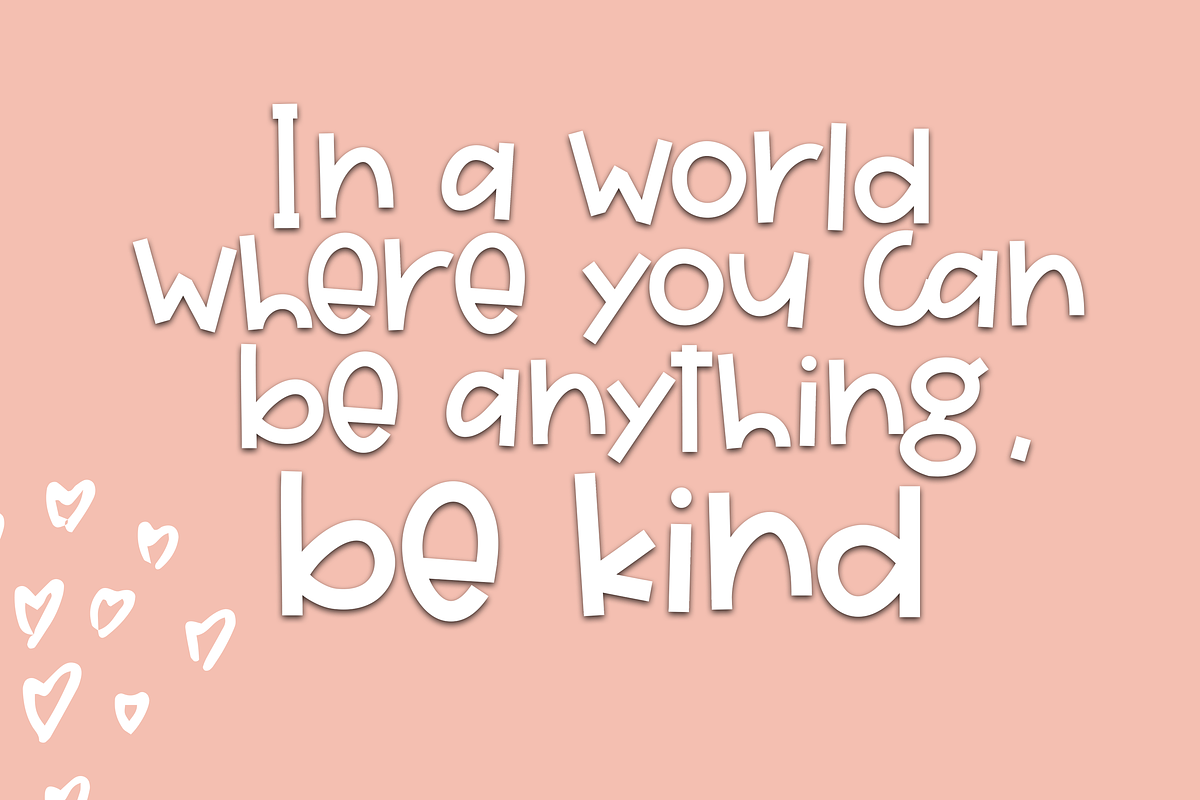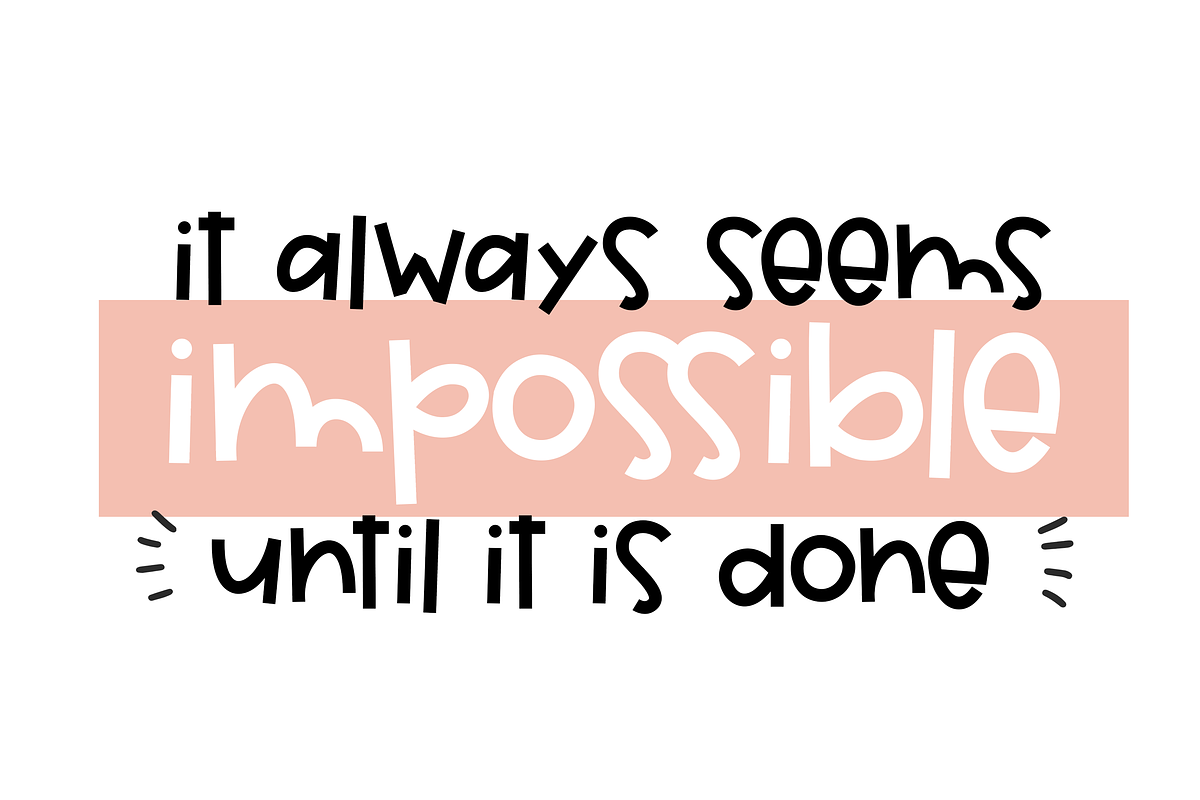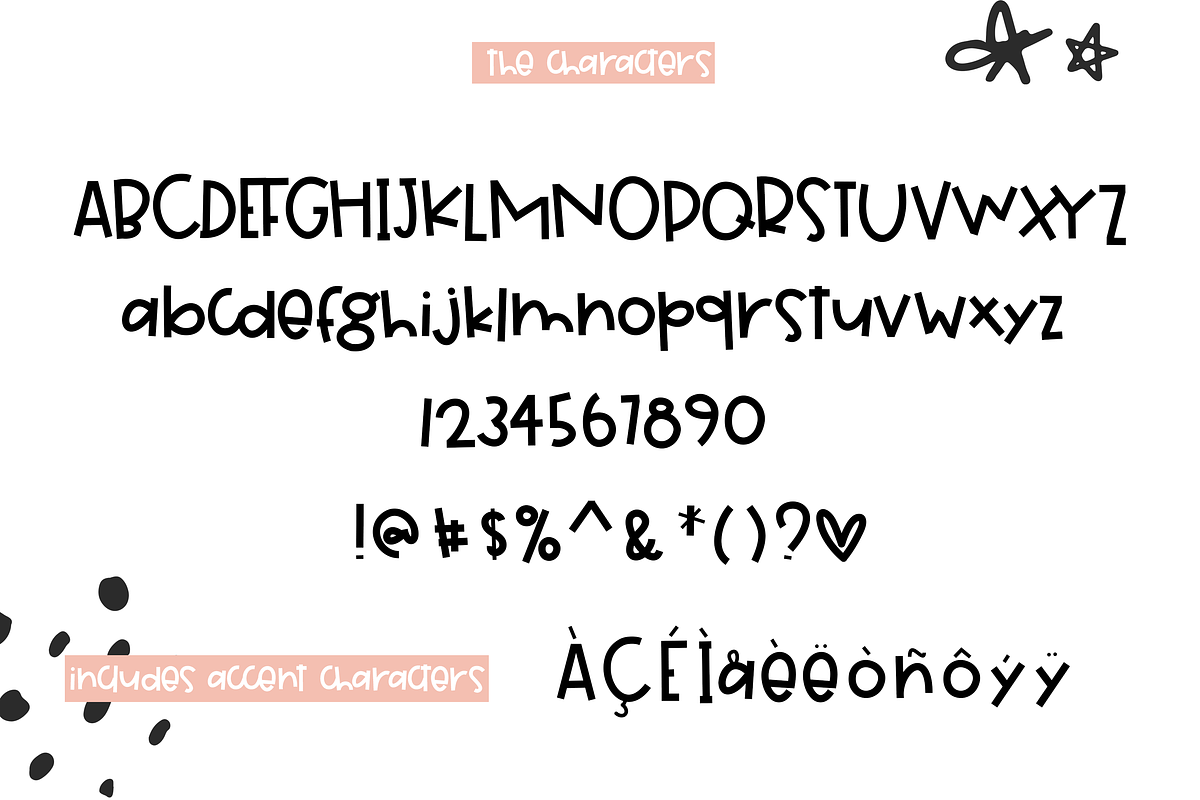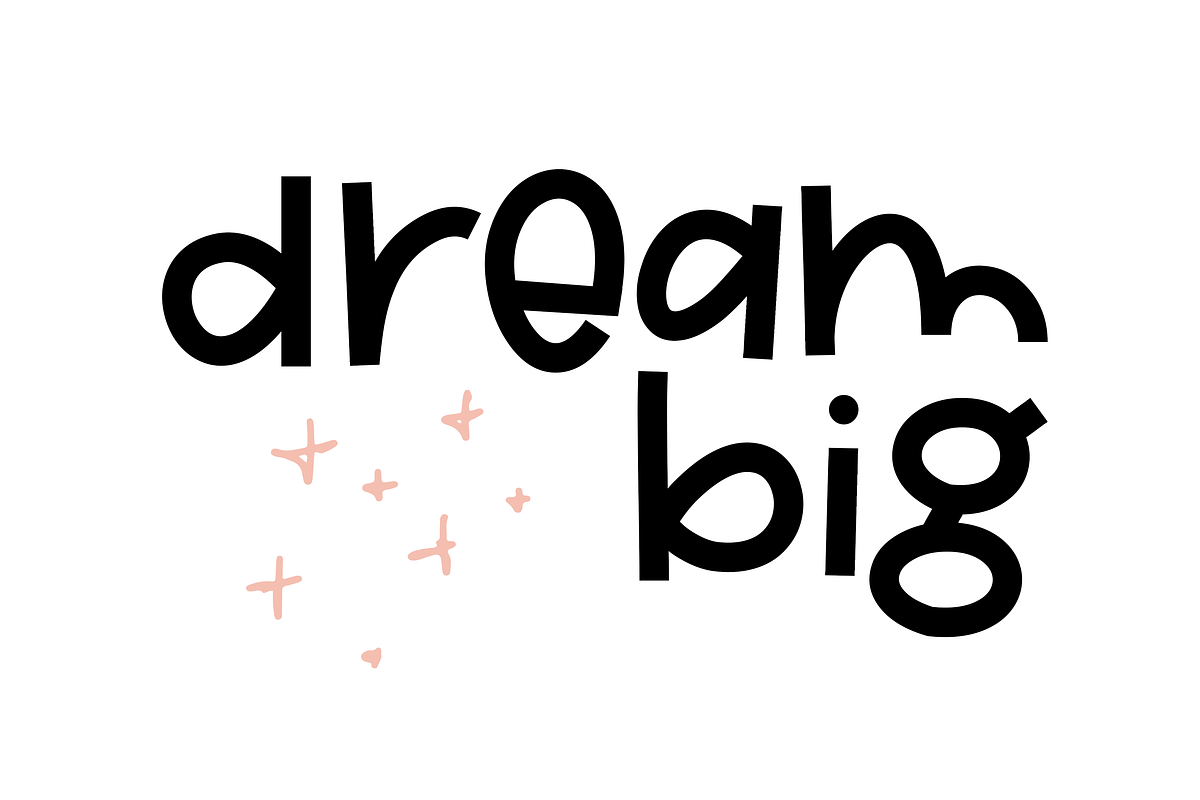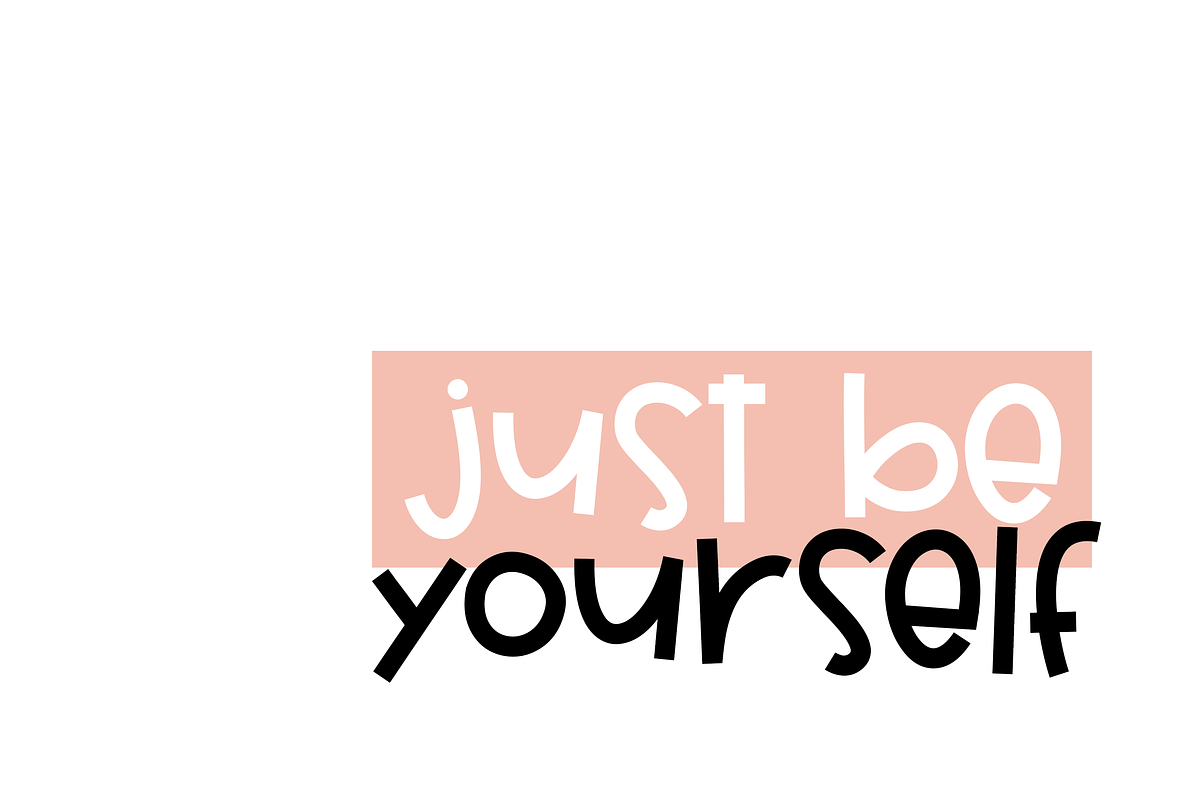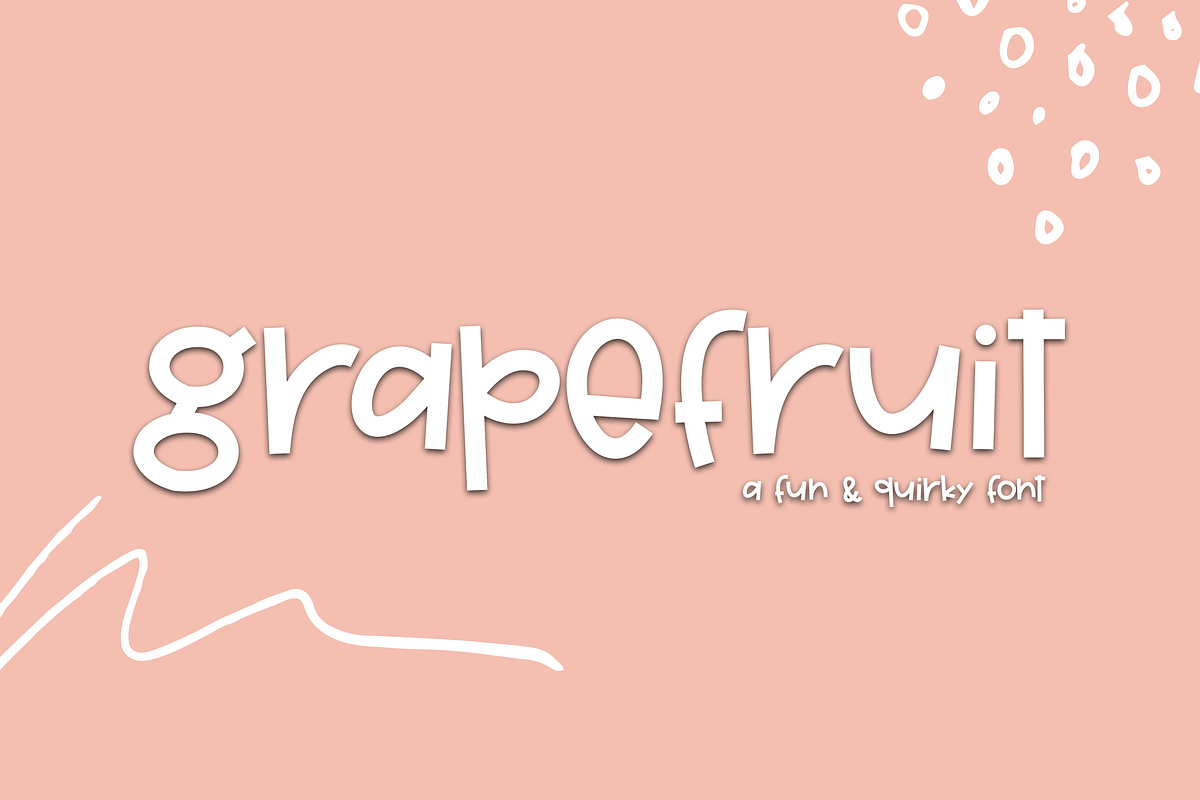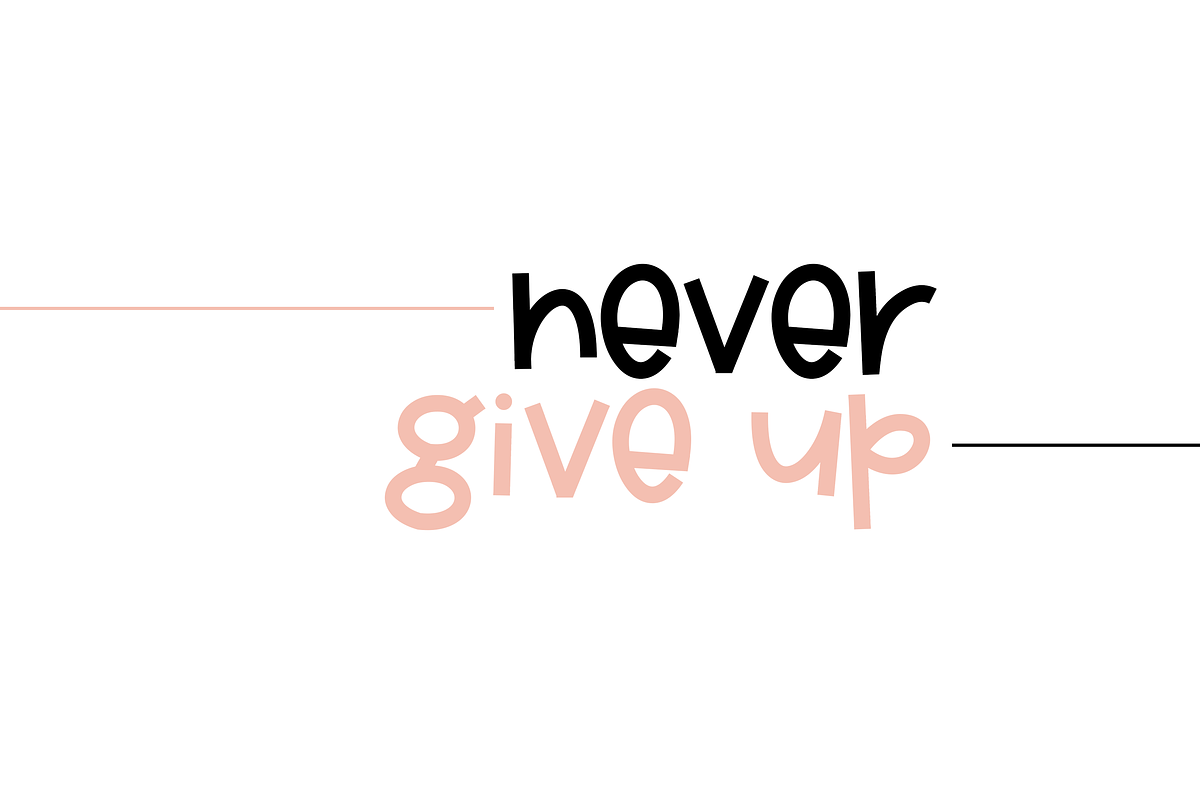
Grapefruit - A Fun Handwritten Font
Grapefruit is a fun and quirky font.
This font is perfect for quotes, headings, blogs, logos, invitations and more!
This font does include accent characters